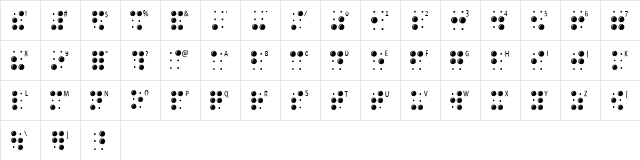
BrailleLatin Regular Font Preview
BrailleLatin Regular
BrailleLatin Regular Font Details
Design Context for BrailleLatin Typeface
BrailleLatin offers clean, dependable letterforms without strong stylistic allegiance, making it a practical choice for designers who need flexibility.
Pro Tip: Pair BrailleLatin with a font of contrasting weight or personality to build a more expressive typographic hierarchy.